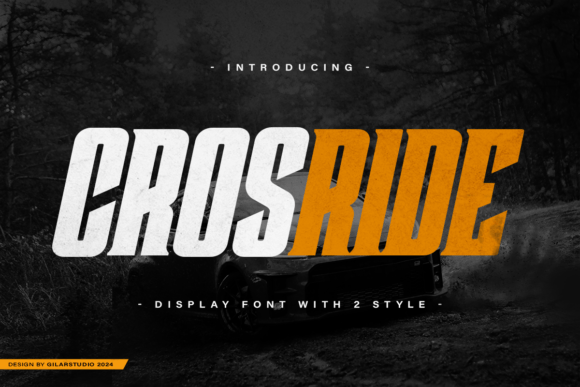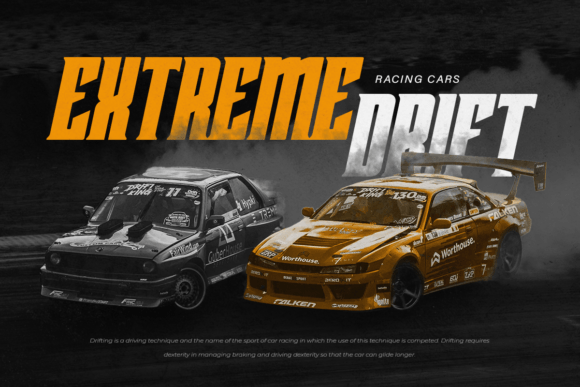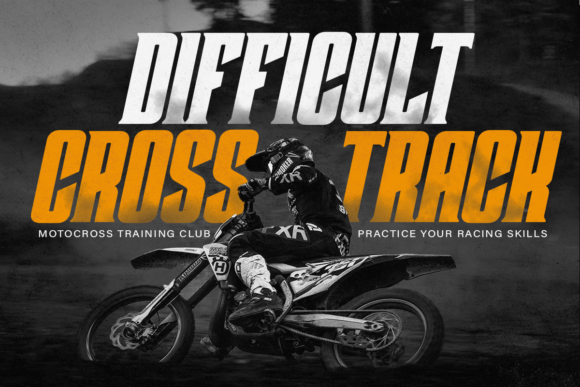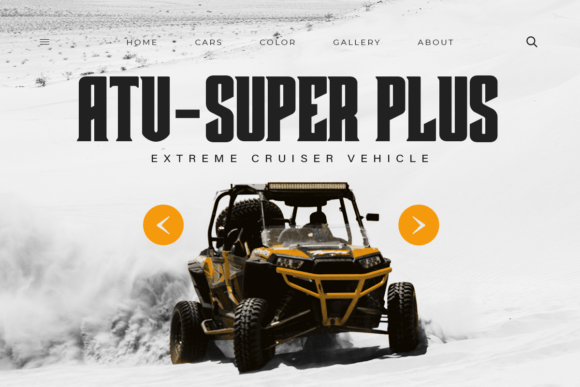
Crosride Font: A Bold Display Font for Automotive Logo Design
About the Crosride Font
Experience the unique personality of Crosride Font, a font designed for impact. Crosride is a bold & condensed display font that is inspired by sports. Ideal for fast car racing sports titles, running matches, cycling, automotive game logos and monograms or other modern dynamic text. Runner compare favorably with legibility and size, creating the effect of power and speed. Designed as a fast and dynamic font, but with a slightly different font design.
Crosride excels in headlines, logos, and short, impactful text for projects needing a bold, energetic feel. Its condensed nature makes it perfect for posters, packaging, and branding applications where strong visual impact is key. Avoid using it for body text or long paragraphs; its condensed design compromises readability at smaller sizes.
The font’s core personality is powerful and dynamic, reflecting speed and competition. It’s ideal for brands associated with sports, automotive industries, or anything needing a modern, assertive image. Consider pairing it with a clean sans-serif like Montserrat for a balanced contrast or a geometric sans-serif like Futura for a more modern, streamlined feel.
For a slightly softer contrast, a neutral serif like Lato could work well, tempering Crosride’s boldness while maintaining visual interest. Avoid pairing it with script fonts, as this could clash with its strong geometric structure.
Crosride Font Usage Examples
Crosride Font Example